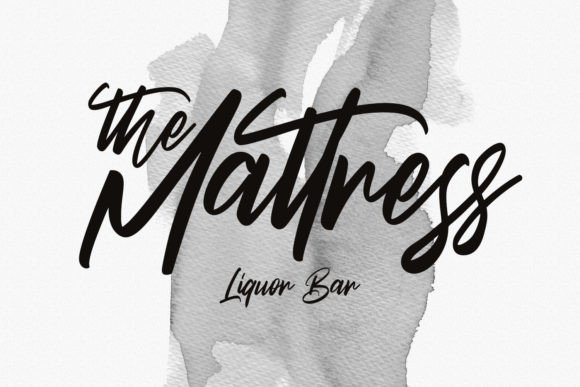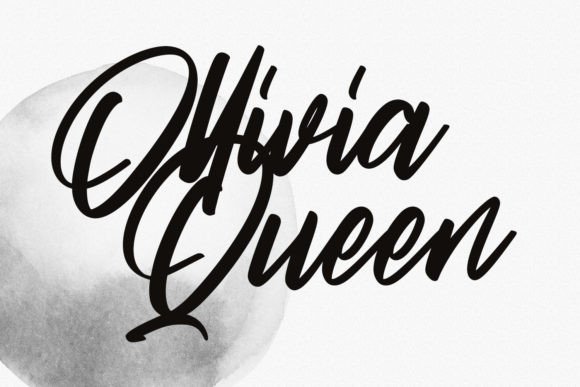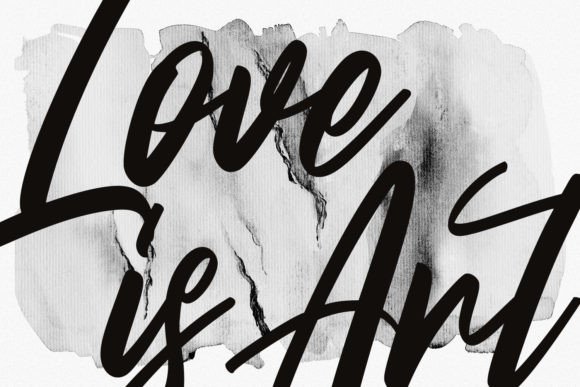
Introduction to Kashmeres Font
Remember that moment when you stumbled upon the perfect font for your creative project? The excitement, the thrill of bringing your idea to life? For designers and crafty enthusiasts, finding the right font can be a game-changer. It’s the difference between a good design and a great one.
Enter the enchanting Kashmeres Font, a magical script font that will transport your designs to a world of elegance and sophistication. With its delicate curves and refined lines, this font is perfect for Instagram-worthy visuals, DIY projects, or any creative endeavor that demands a touch of high-quality flair.
Key Features of Kashmeres Font
- High-quality, unique design perfect for creative projects, with a distinctive style that sets it apart.
- Unique characteristics include intricate details and ornate elements, making it ideal for elaborate and decorative designs.
Honest Review: Kashmeres Font
As a designer, I’m always on the lookout for high-quality design resources that can elevate my creative projects. I recently stumbled upon the Kashmeres Font and was impressed by its unique aesthetic.
Here’s what works well: ✨ The font has a beautiful, handwritten feel that’s perfect for adding a touch of elegance to any design. The transparent background is also a great feature, allowing for seamless integration with images and other design elements.
However, there are a few limitations: ⚠️ The font may not be suitable for very small text sizes, as the letters can become difficult to read. Additionally, the font is only available in a single weight, which may limit its versatility in certain design applications.
Overall, I’m impressed with the Kashmeres Font and would definitely recommend it to fellow designers. It’s a great addition to any design resource collection, and its unique aesthetic is sure to add a touch of creativity to any project.
Kashmeres Font is a valuable design resource that can elevate your creative project. Use it in Canva, Adobe Photoshop/Illustrator, or PowerPoint/Word to add a touch of elegance and sophistication. This versatile font is perfect for creating professional-looking graphics, logos, and documents.
Kashmeres Font is perfect for creating logos, graphics, and documents that require a professional and elegant touch. Use it in a variety of creative projects, including business cards, brochures, and presentations.